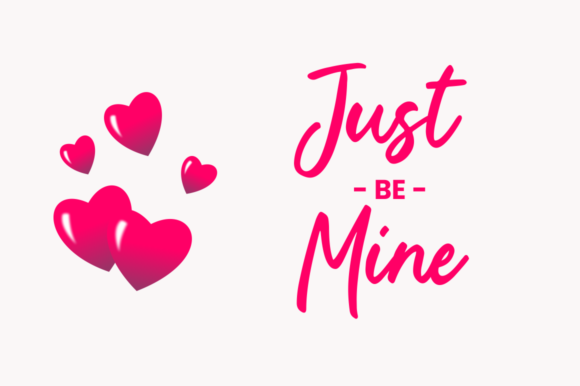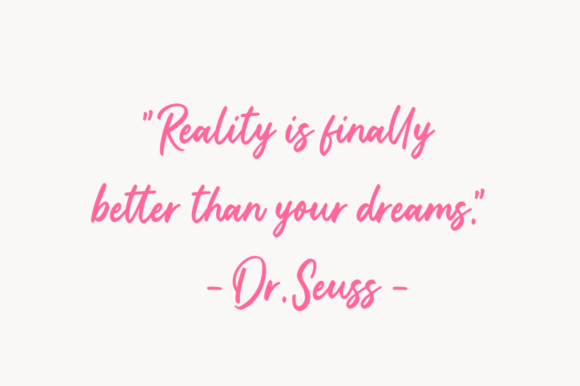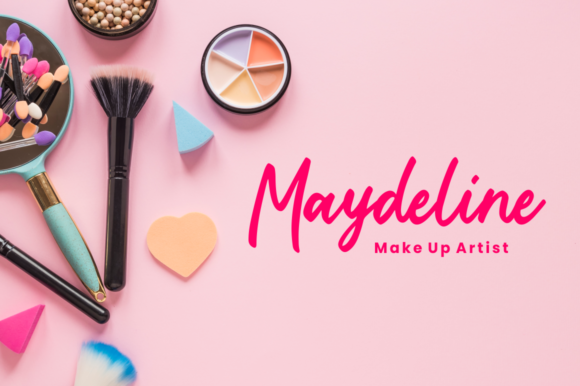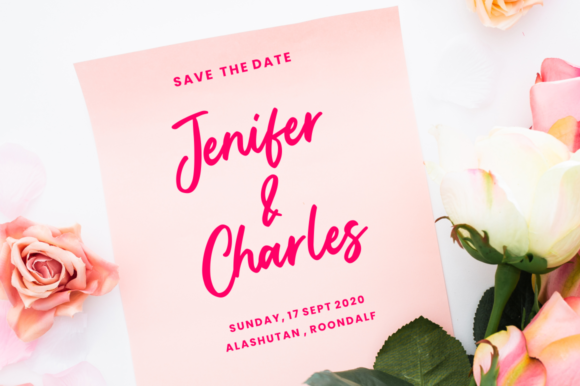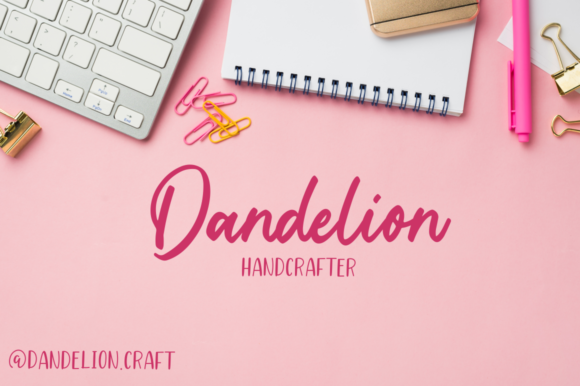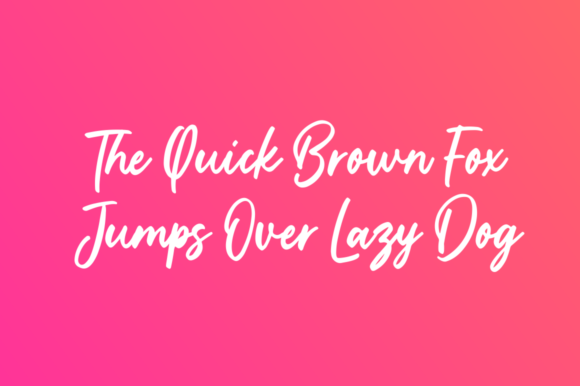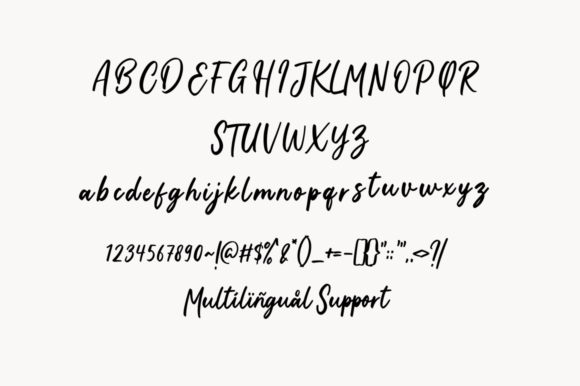
Candy Chicks Font
About Candy Chicks Font
Candy Chicks is playful and cute, but also authentic. This versatile script font has a wide range of applications ranging from Valentine’s projects to body text and is guaranteed to add a romantic touch to your next design.